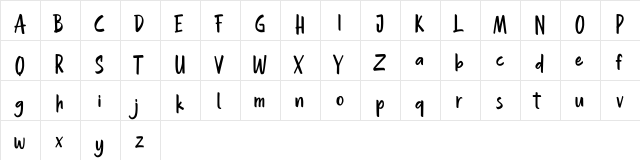
Hollaboi FREE Regular
Design Context for Hollaboi FREE Typeface
Hollaboi FREE is a composed and adaptable typeface that performs quietly and consistently across a wide range of design contexts.
Pro Tip: Use Hollaboi FREE in both headline and body roles to test its range before committing to a single application.